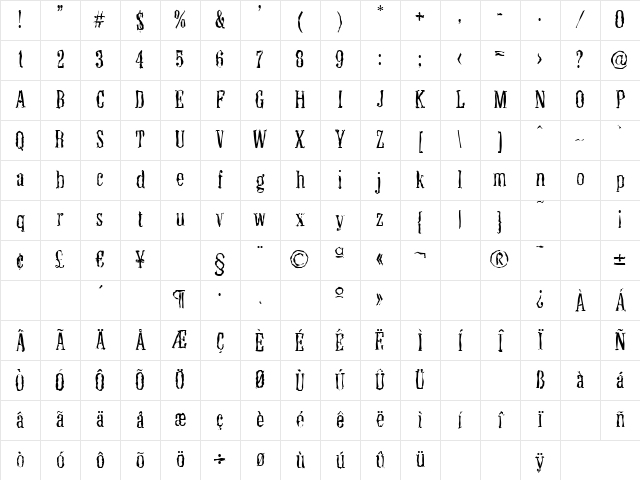
RobertBeckerRandom-Light Regular Free Font
RobertBeckerRandom-Light Regular
Design Context for RobertBeckerRandom-Light
RobertBeckerRandom-Light is a composed and adaptable typeface that performs quietly and consistently across a wide range of design contexts. Its slender proportions lend an understated elegance to any composition.